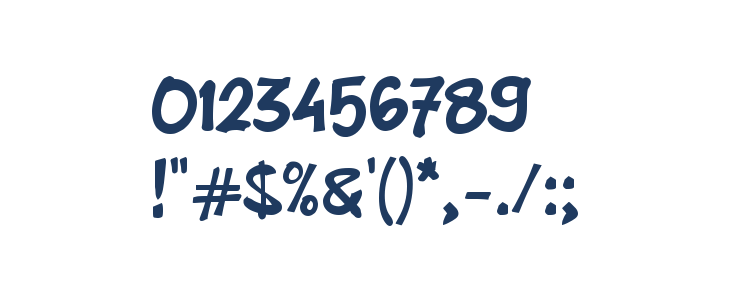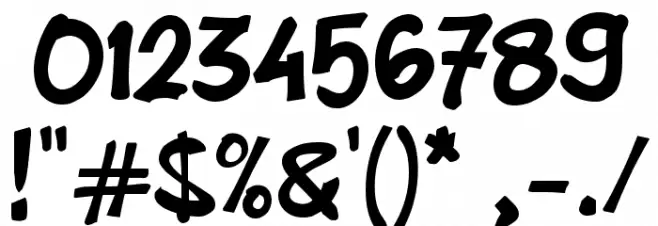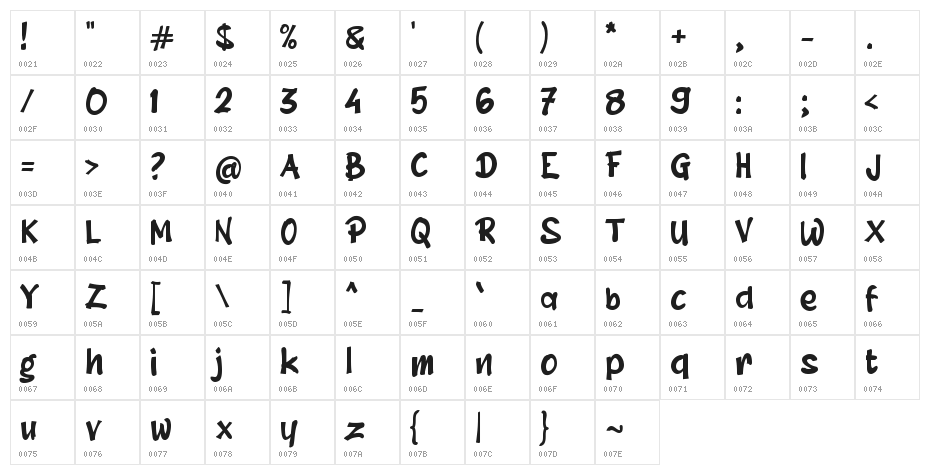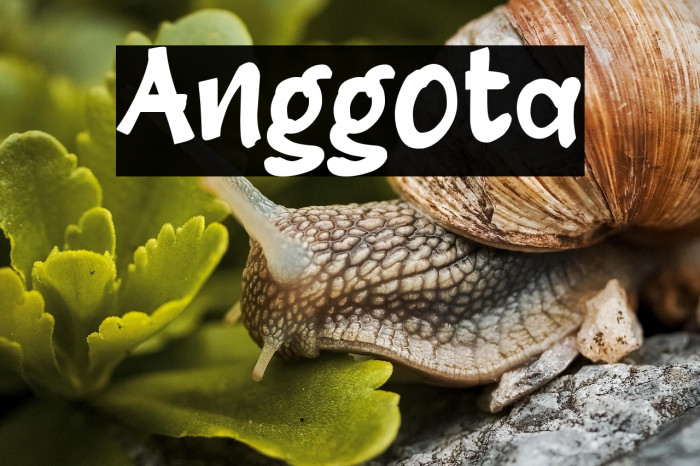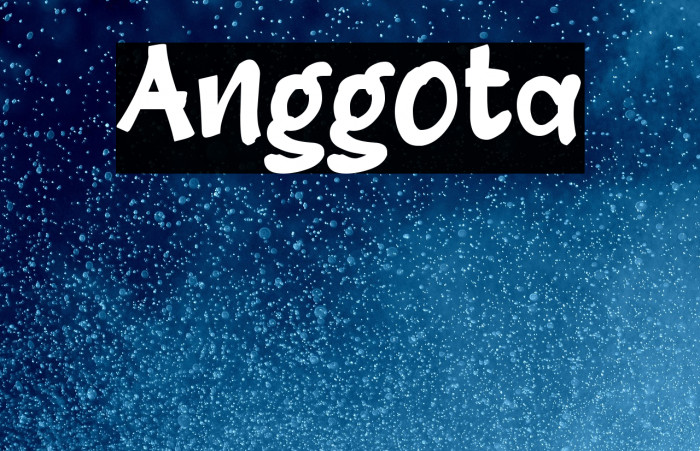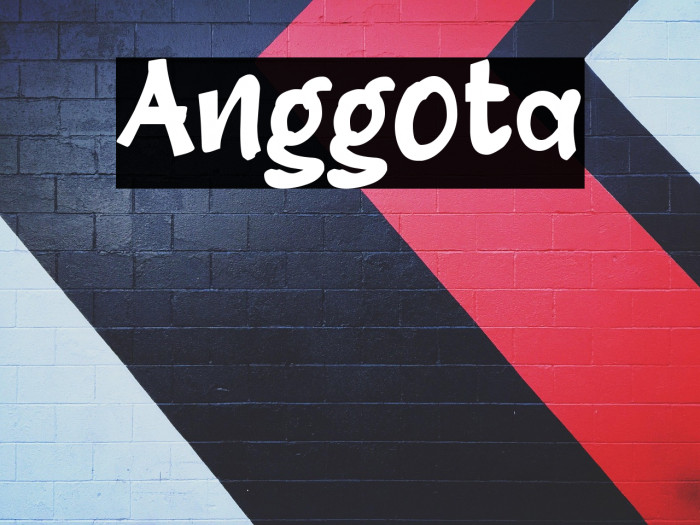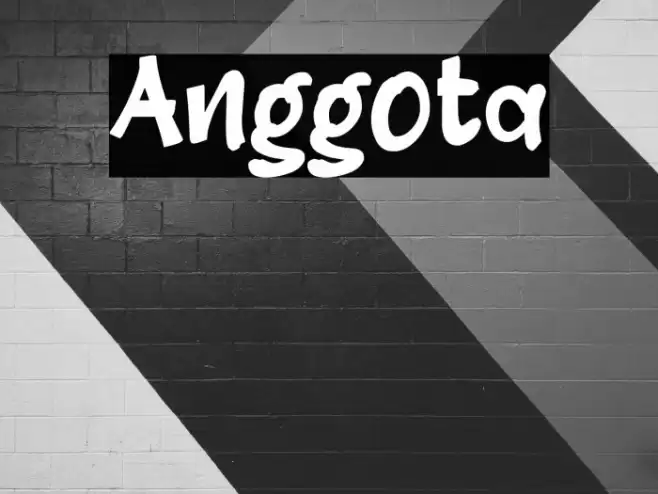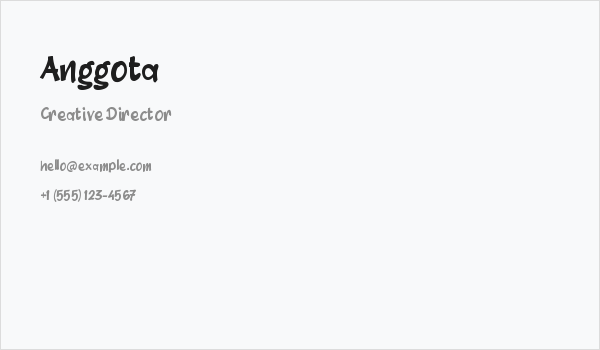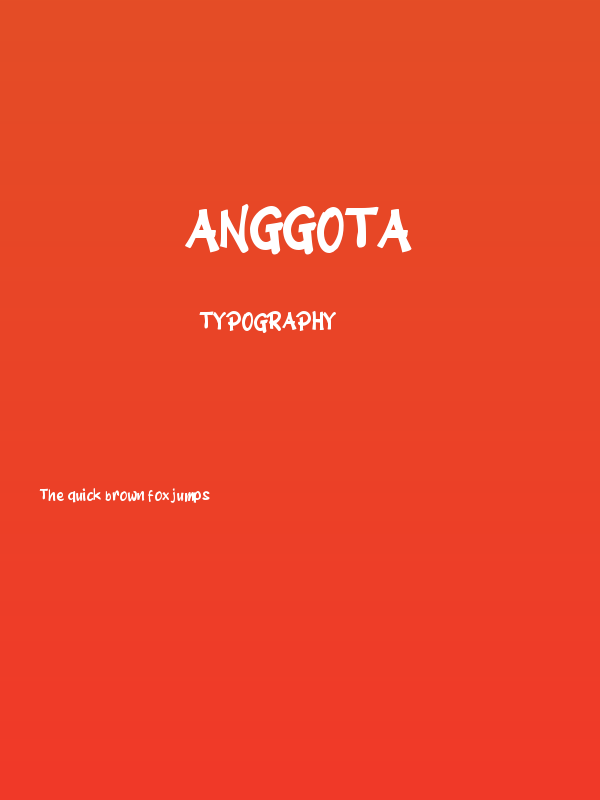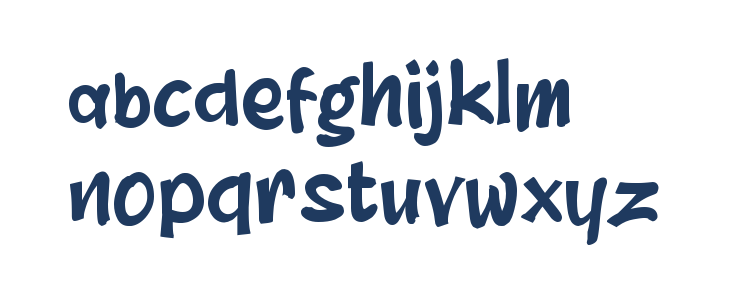
Anggota Font
Anggota Description
This font features a bold and playful style with a handwritten appearance. The letters are rounded and slightly irregular, giving it a casual and friendly look. The uppercase and lowercase letters maintain a consistent style, with a slight slant that adds to its informal charm. The numbers and special characters are designed to match the playful aesthetic, making the font versatile for various creative projects. The strokes are thick, providing a strong presence on the page, and the overall design is cohesive and visually appealing.
| Proposed Projects | Ideal for children's books, playful branding, greeting cards, and informal invitations. |